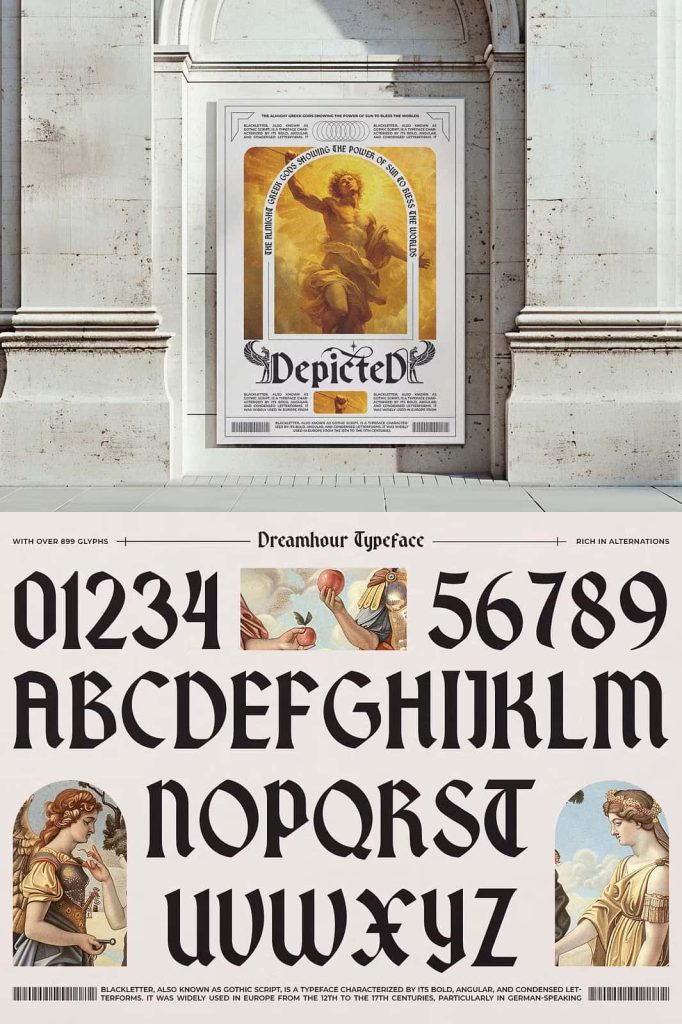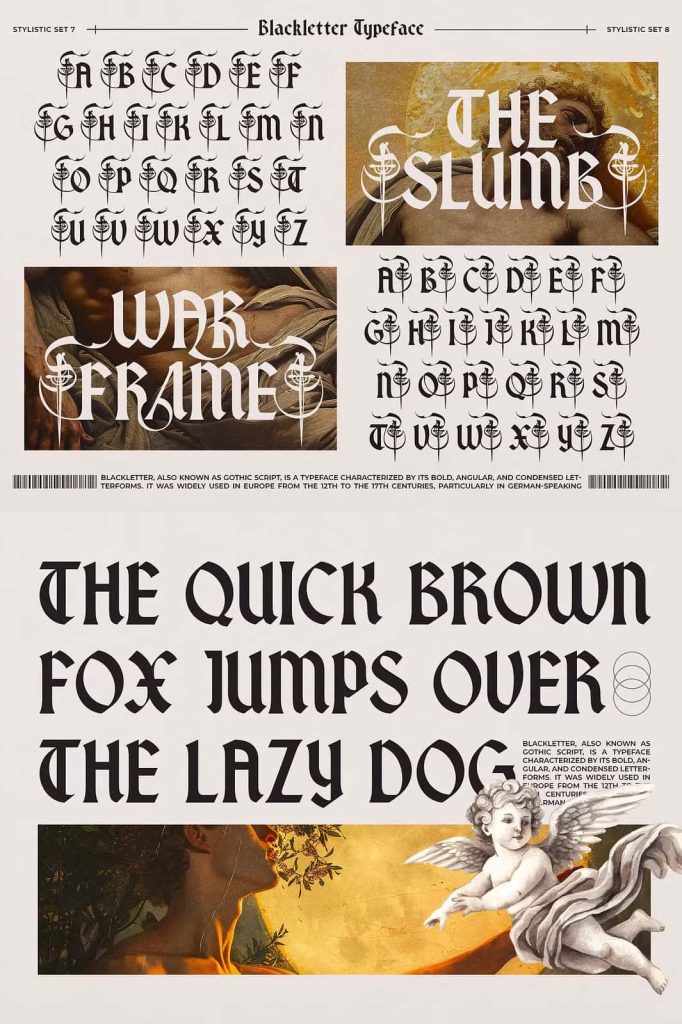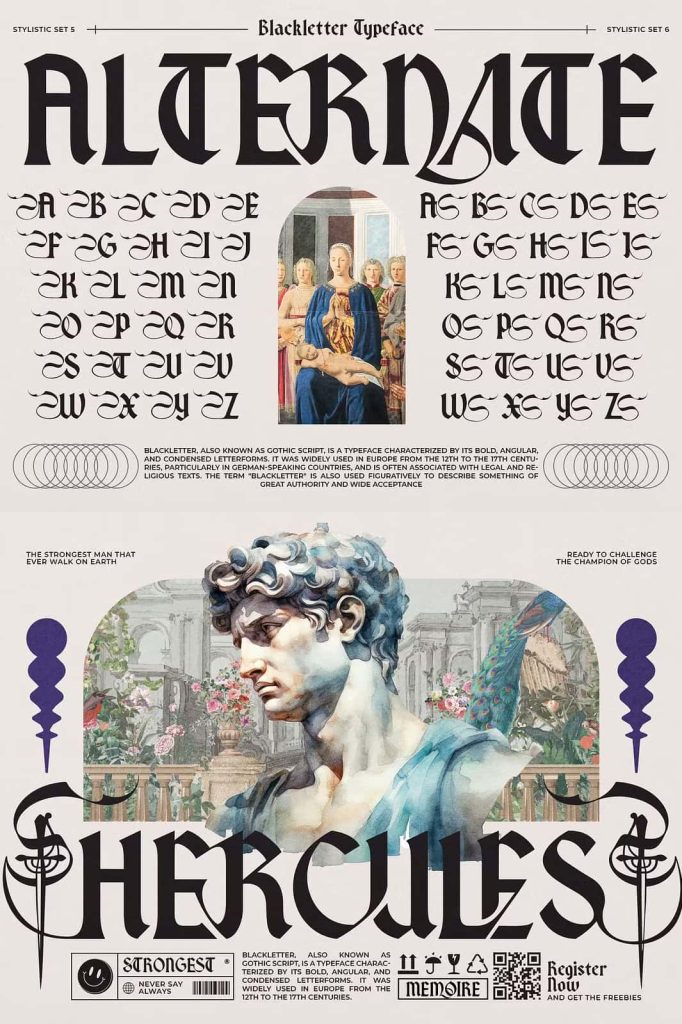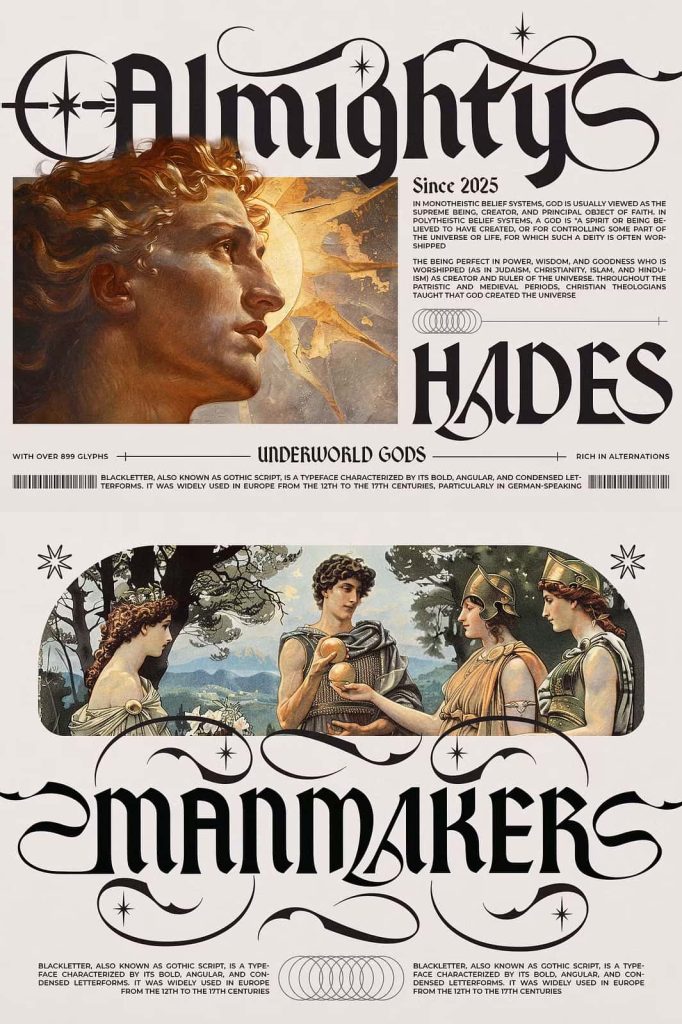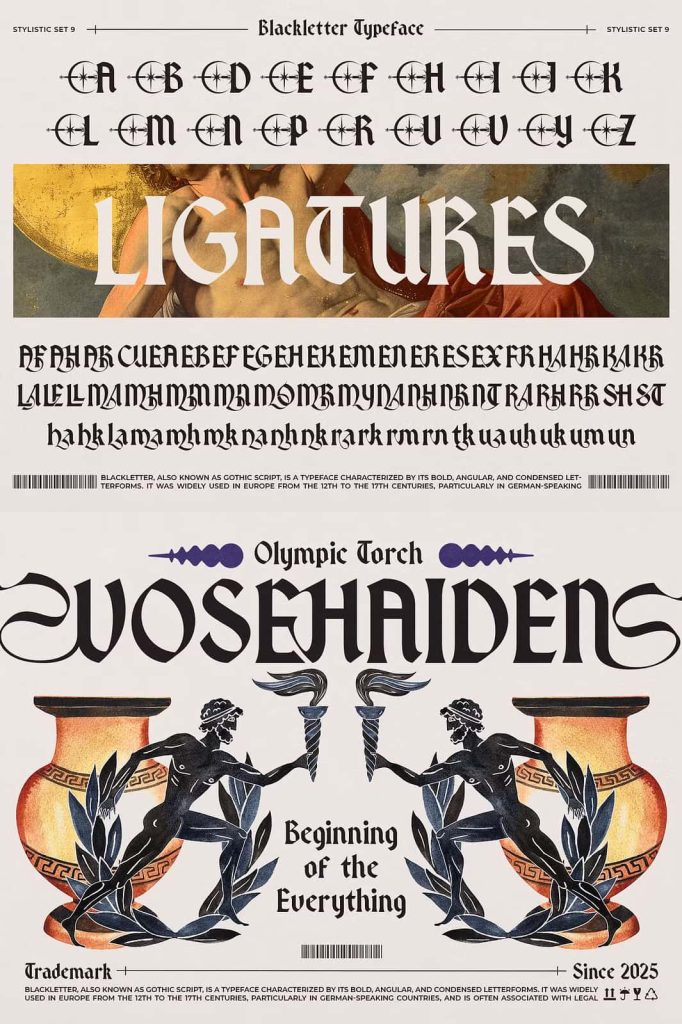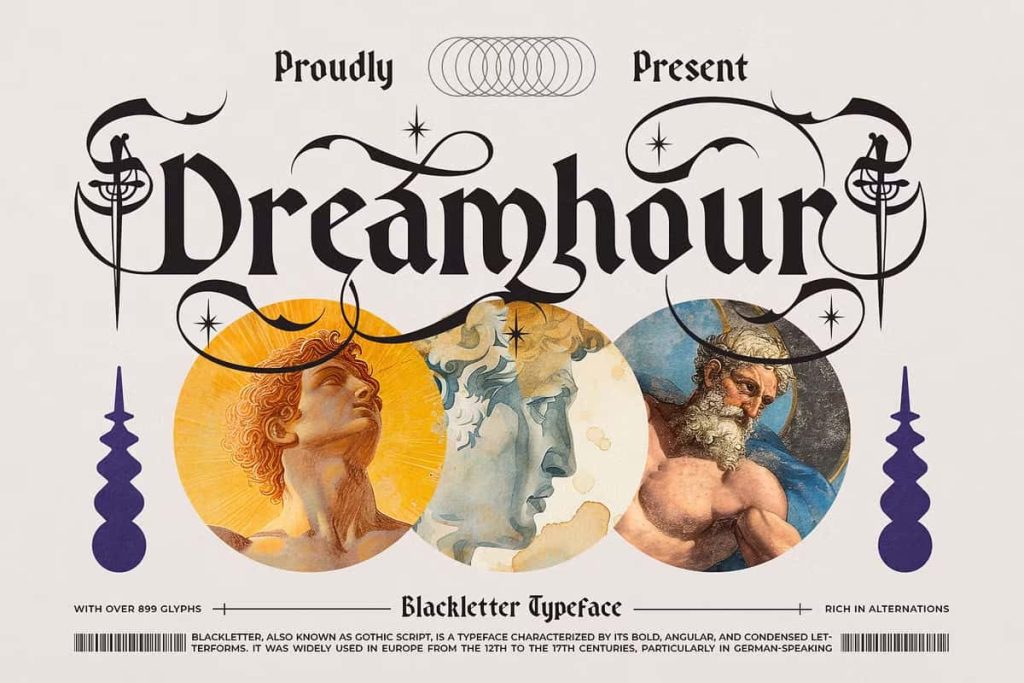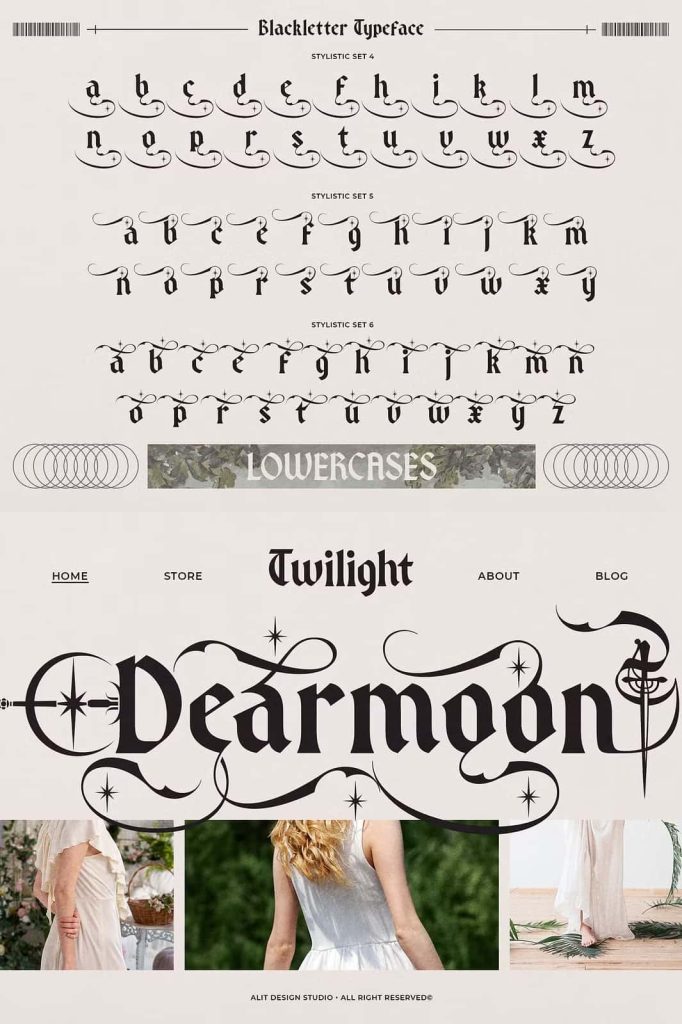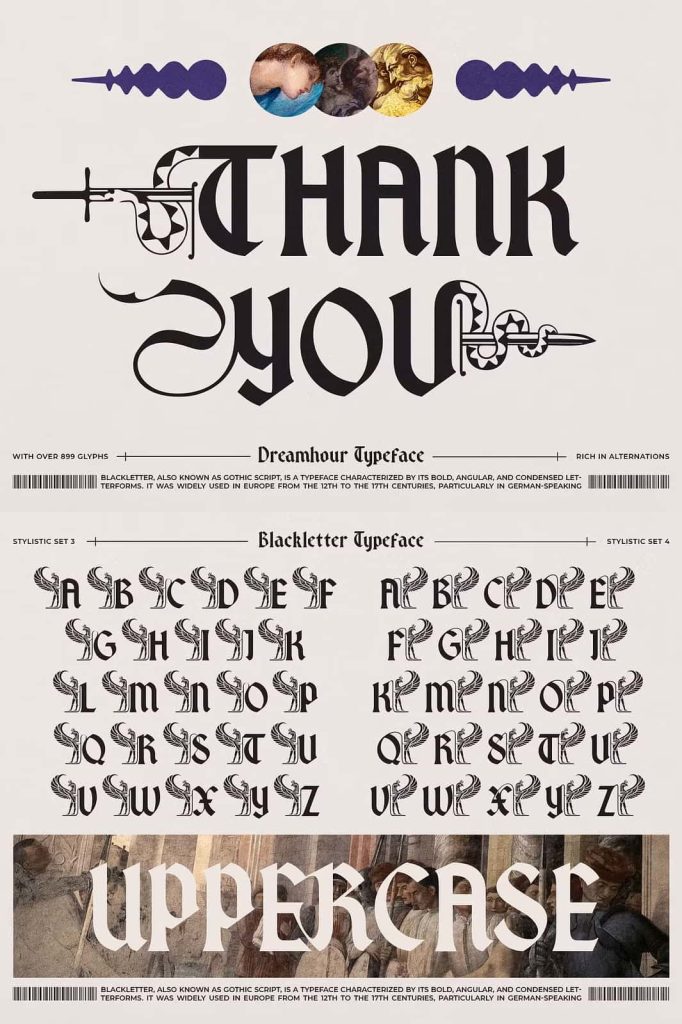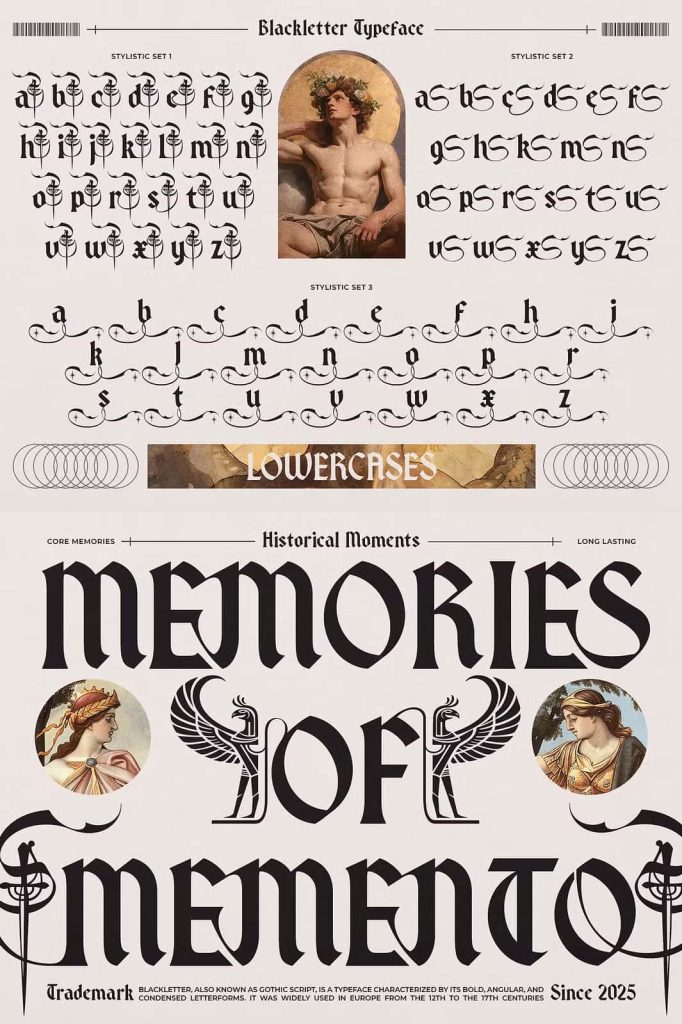
Dreamhour Display Typeface
Dreamhour is a richly ornamental display typeface that masterfully combines the expressive elegance of traditional blackletter with the refined balance of modern serif typography. Designed for creatives who want to produce unforgettable visual experiences, Dreamhour delivers a striking combination of historic craftsmanship and contemporary sophistication. Every letter features carefully sculpted details that create a luxurious appearance while maintaining excellent structure and readability for display applications.
Inspired by the artistic heritage of blackletter calligraphy yet refined with clean serif proportions, Dreamhour offers a distinctive personality that feels timeless and modern at the same time. The result is a font family that communicates confidence, mystery, creativity, and premium quality, making it an exceptional choice for designers seeking typography with a strong visual identity.
A Perfect Fusion of Blackletter and Modern Serif Design
Dreamhour stands apart from ordinary display fonts by successfully merging two iconic typographic styles into one cohesive design. The dramatic strokes and ornamental flourishes borrowed from blackletter traditions provide bold character, while the balanced serif construction introduces clarity and elegance that suit contemporary design trends.
This unique fusion allows Dreamhour to capture attention immediately without feeling outdated or overly decorative. Instead, it creates a refined visual language that works beautifully across luxury branding, editorial design, premium packaging, and artistic projects. Every character has been carefully crafted to preserve decorative beauty while ensuring consistent harmony throughout the typeface.
Create Bold and Memorable Designs
Typography often becomes the defining element of a creative project, and Dreamhour was built to make every word unforgettable. Its ornamental details naturally draw the viewer’s eye, making headlines, titles, and logos appear more sophisticated and expressive. Whether you are launching a luxury product, designing a fashion campaign, or creating an elegant publication, Dreamhour helps your typography become the centerpiece of the design.
The font performs exceptionally well in large display sizes where its intricate details can truly shine. Designers can confidently use Dreamhour to create dramatic compositions that communicate exclusivity, artistic craftsmanship, and premium quality.
Ideal for Luxury Branding
Luxury brands require typography that reflects refinement and uniqueness. Dreamhour delivers exactly that through its carefully balanced combination of decorative artistry and modern elegance. The font establishes a strong visual identity that feels exclusive while remaining highly professional.
Whether you are creating branding for fashion labels, jewelry collections, beauty products, premium beverages, or boutique businesses, Dreamhour elevates every visual element with confidence and sophistication.
Recommended Branding Applications
- Luxury logos
- Fashion branding
- Jewelry collections
- Cosmetic packaging
- Perfume branding
- Premium product labels
- Boutique business identities
- Luxury stationery
Excellent for Editorial and Publishing Projects
Dreamhour brings dramatic elegance to editorial typography. Magazine covers, book covers, chapter titles, posters, and artistic publications all benefit from the font’s decorative personality. Its carefully balanced letterforms provide strong visual hierarchy while maintaining a polished and sophisticated appearance.
Pair Dreamhour with clean serif or sans serif body fonts to create editorial layouts that balance ornate headlines with highly readable content. This contrast enhances the overall reading experience while allowing the display typography to stand out beautifully.
Designed for Creative Professionals
Creative directors, graphic designers, branding specialists, illustrators, and typographers will appreciate Dreamhour’s versatility across multiple design disciplines. The font adapts effortlessly to both classic and contemporary aesthetics, making it a valuable addition to any professional font collection.
Whether your project embraces vintage influences or modern luxury, Dreamhour provides the flexibility to communicate elegance, strength, and artistic expression through typography alone.
Versatile Across Multiple Design Projects
Although Dreamhour excels as a premium display font, it performs equally well across a wide range of creative applications. Its ornamental details add sophistication without overwhelming the overall composition, allowing designers to create balanced and memorable visuals.
Perfect For
- Brand identities
- Editorial headlines
- Book covers
- Magazine titles
- Luxury packaging
- Wedding stationery
- Invitations
- Album covers
- Poster design
- Restaurant branding